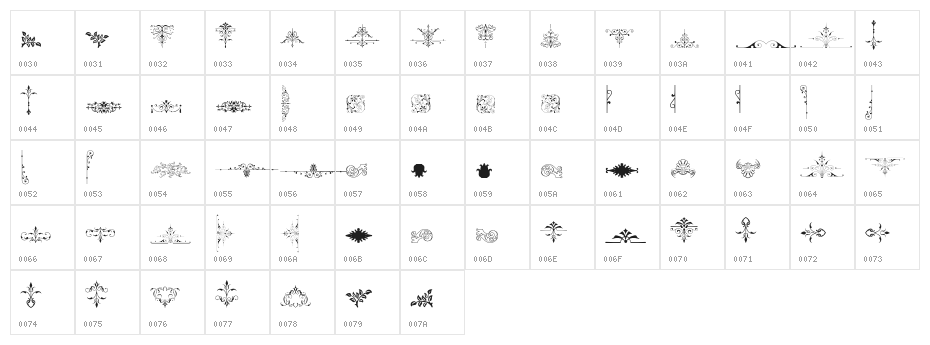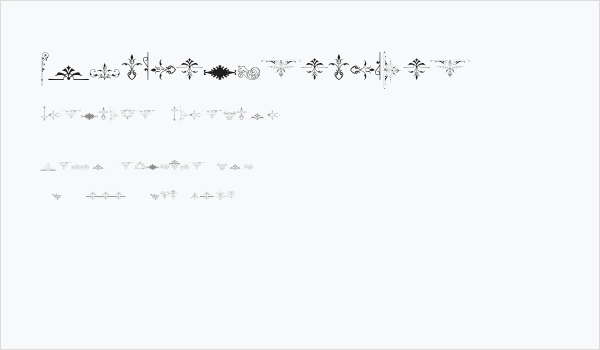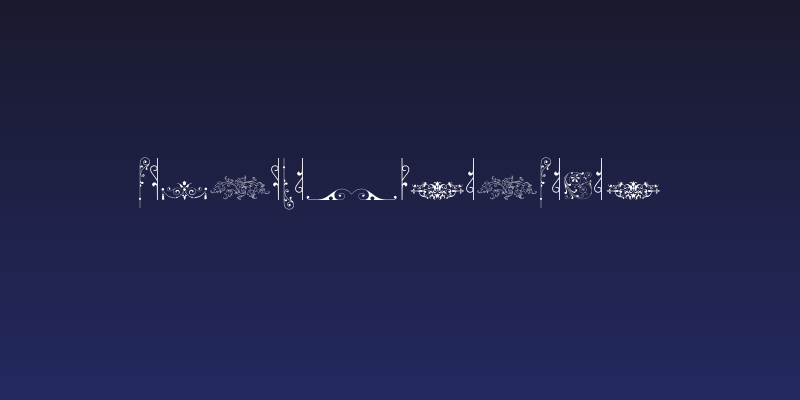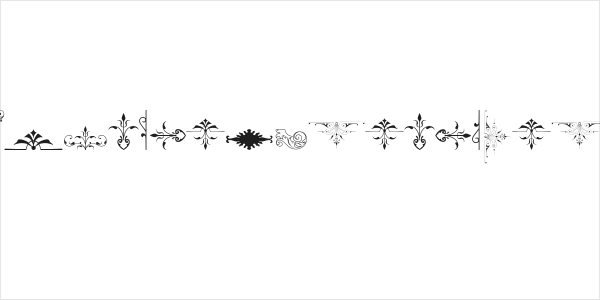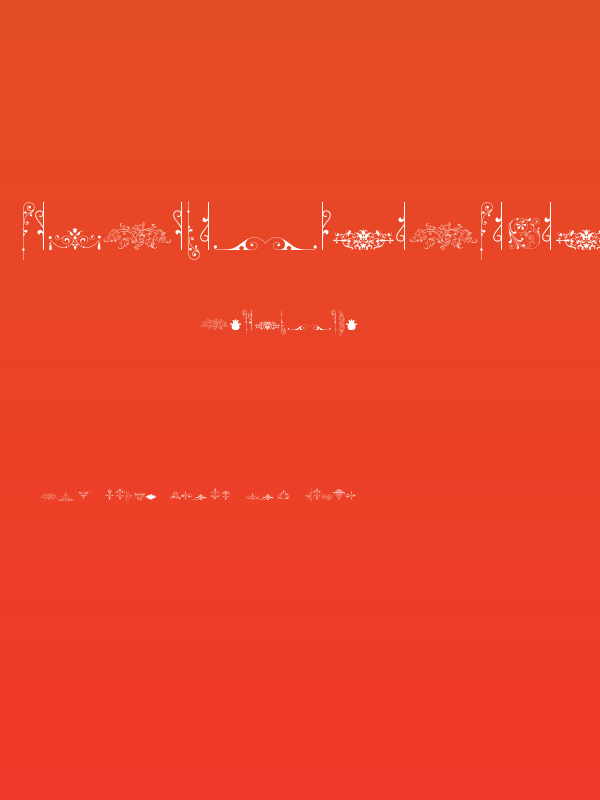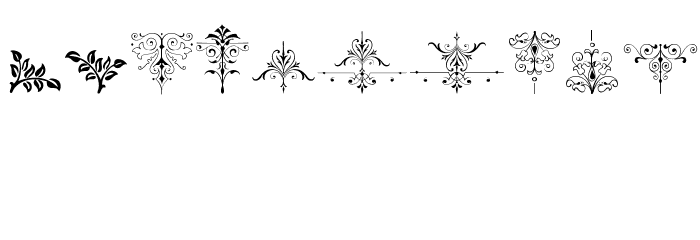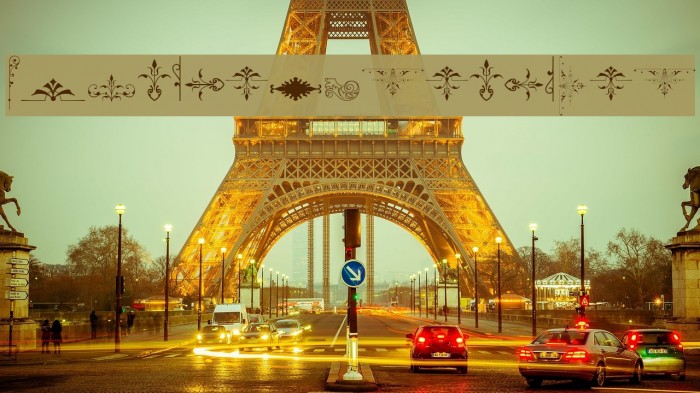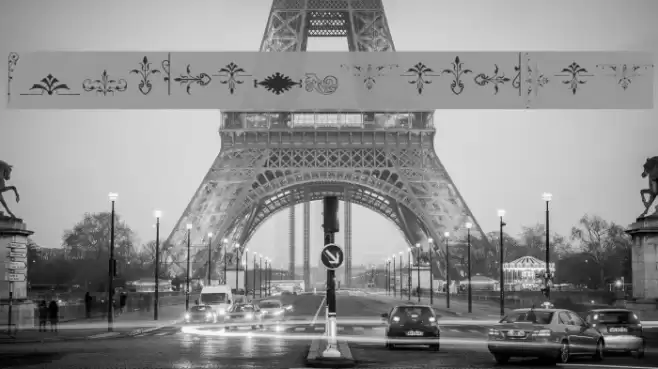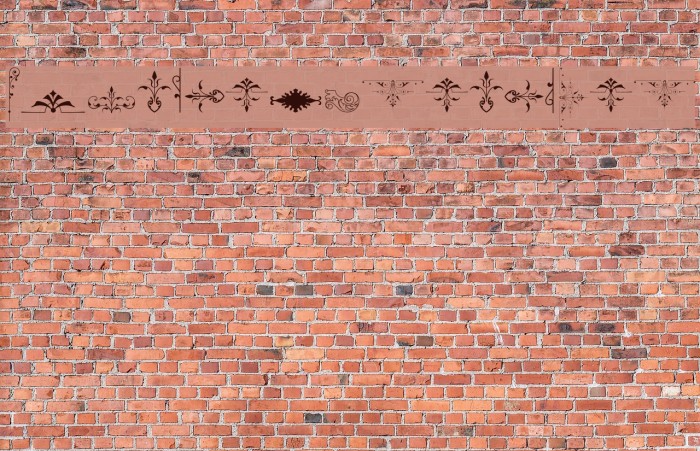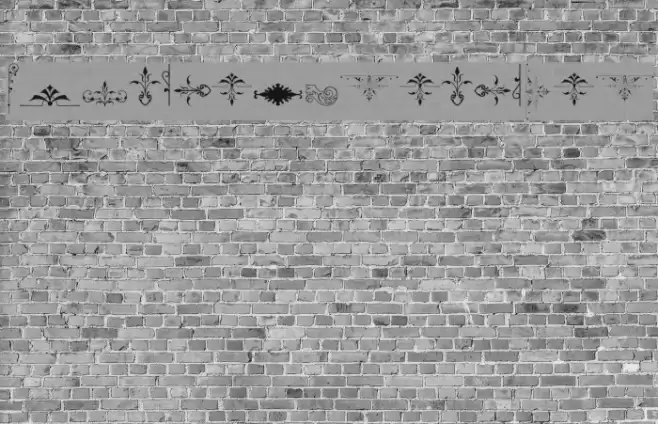
SoftOrnamentsNine Font
This collection features a series of intricate ornamental designs, each showcasing a unique blend of curves, flourishes, and decorative elements. The designs are highly detailed, with a focus on symmetry and elegance, making them ideal for adding a touch of sophistication to various projects. The motifs range from simple, linear embellishments to more complex, intertwined patterns, each crafted with precision and an eye for aesthetic balance. These ornaments are perfect for enhancing the visual appeal of invitations, certificates, or any design that requires an elegant touch.
| Use Case | Decorative elements |
| Proposed Projects | Ideal for use in wedding invitations, certificates, decorative borders, and vintage-themed designs. |